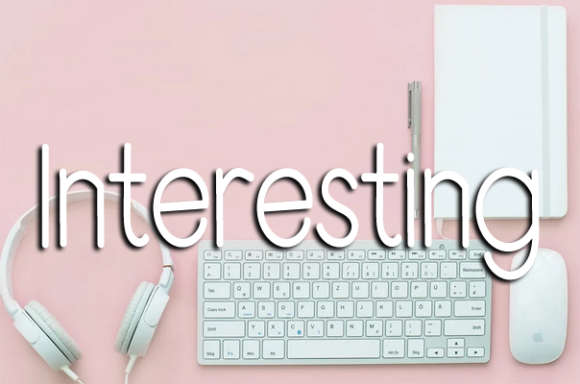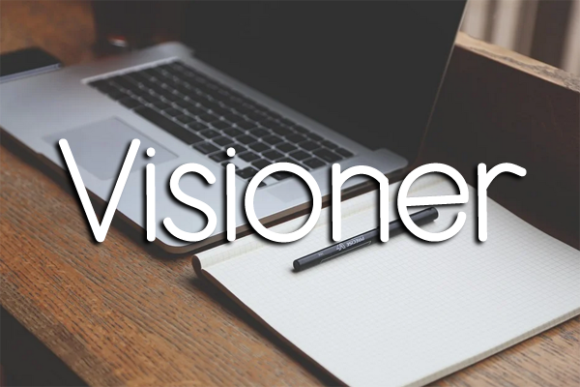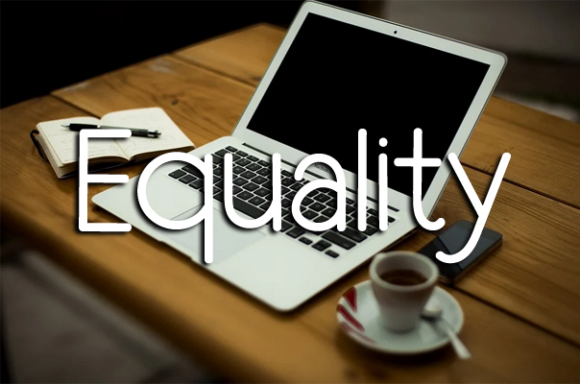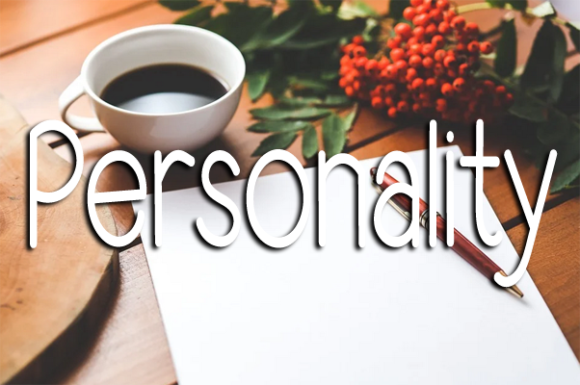
Interesting Font
About Interesting Font
Interesting is a ravishing handwritten font. This versatile script font has a wide spectrum of applications ranging from greeting cards to headlines and is guaranteed to add a romantic feel to your next project.